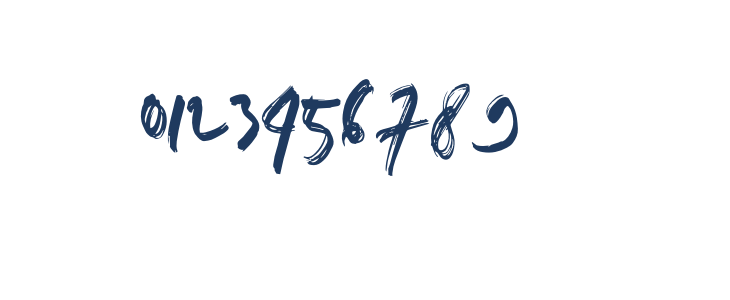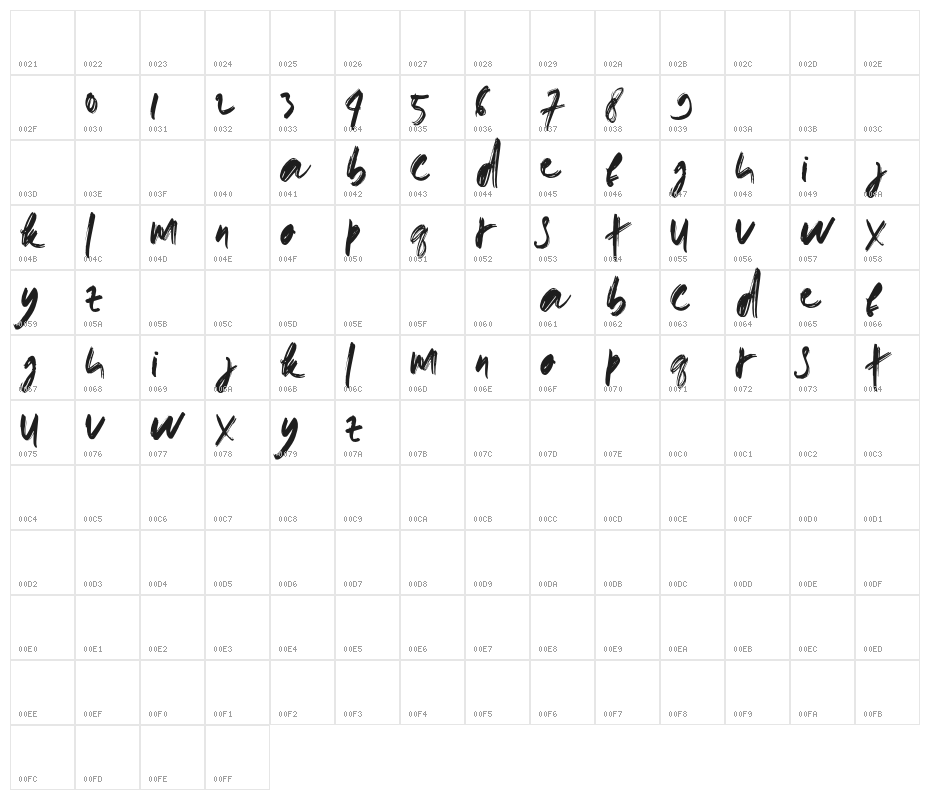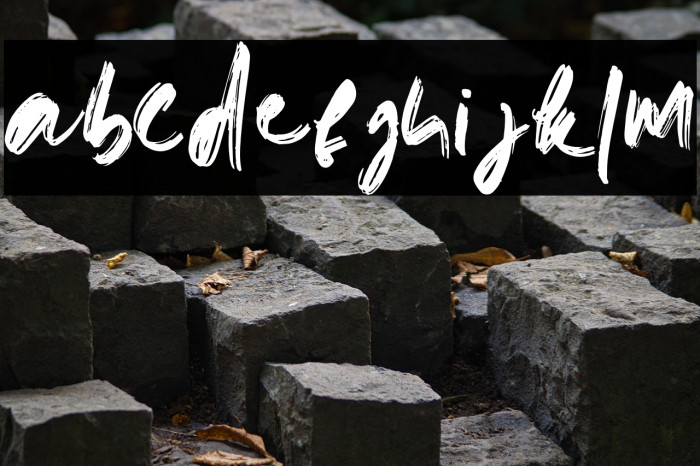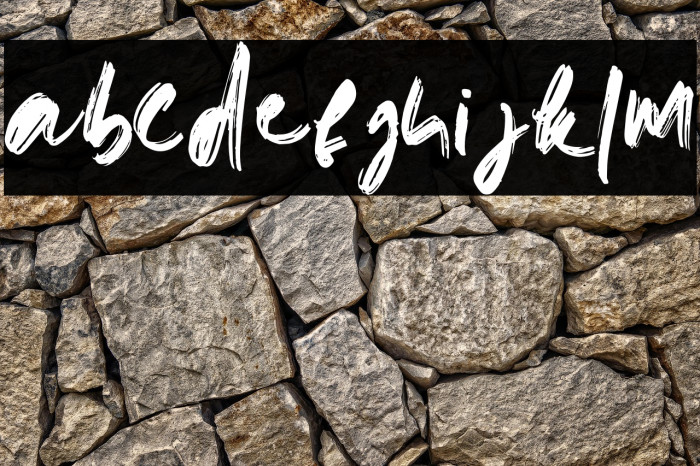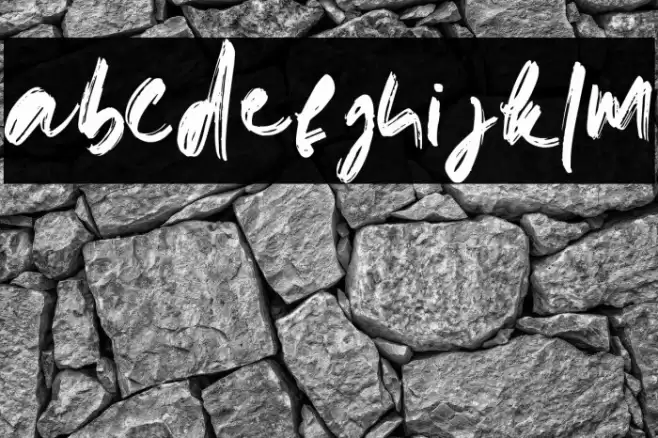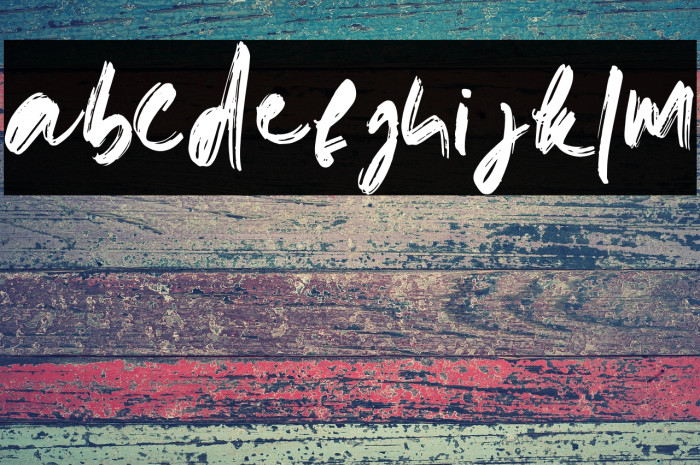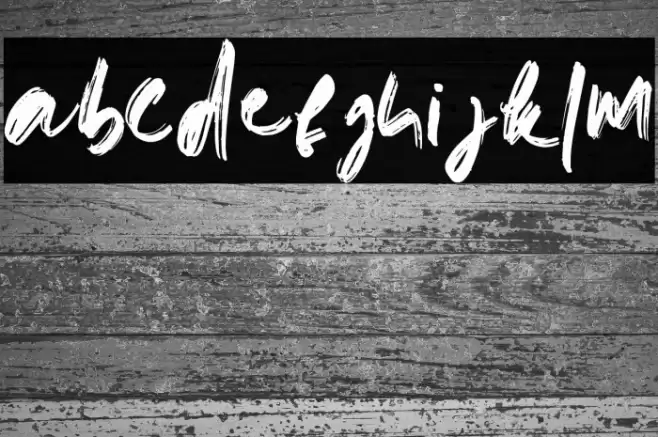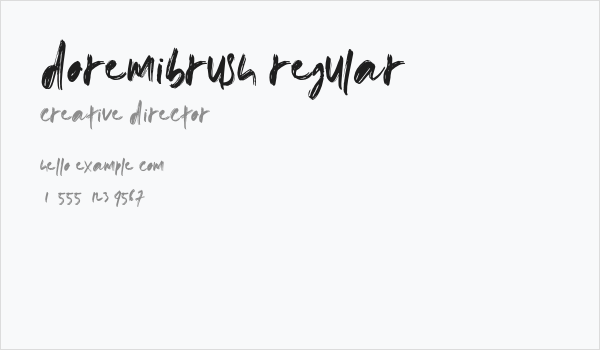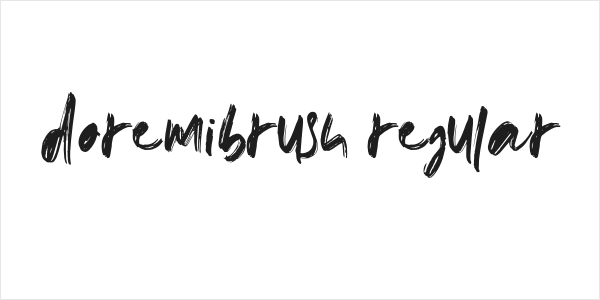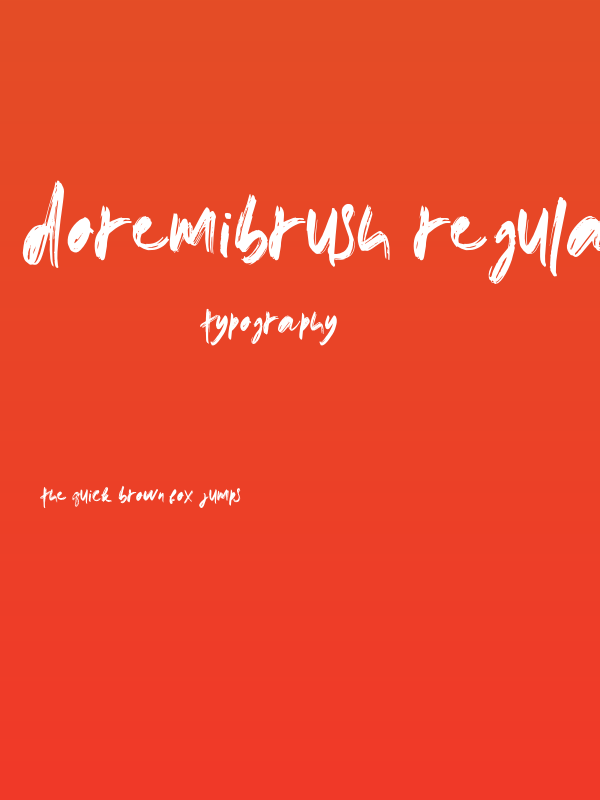
doremibrush-Regular Font
doremibrush-Regular Description
This font exhibits a dynamic and expressive brush style, characterized by its bold and energetic strokes. The letters have a hand-painted appearance, with varying stroke widths that convey a sense of movement and spontaneity. The uppercase and lowercase letters maintain a consistent style, with some characters featuring unique flourishes and loops. The numbers and special characters are crafted with the same lively brush technique, ensuring a cohesive look across all elements. This font is ideal for projects that require a personal and artistic touch, offering a sense of creativity and flair.
| Proposed Projects | Ideal for artistic projects, branding, posters, and invitations that seek a creative and personal touch. |